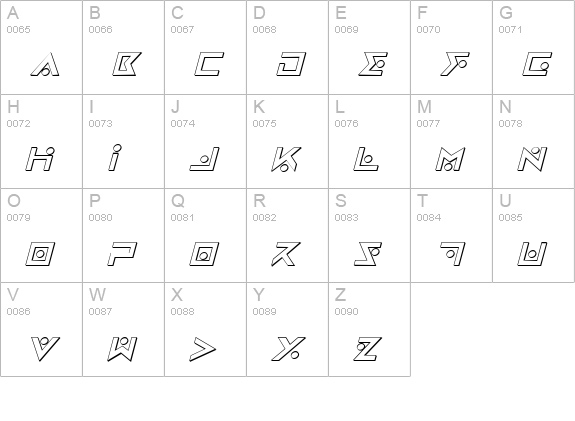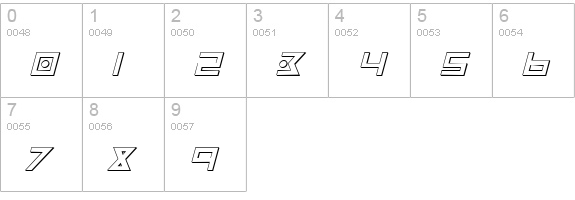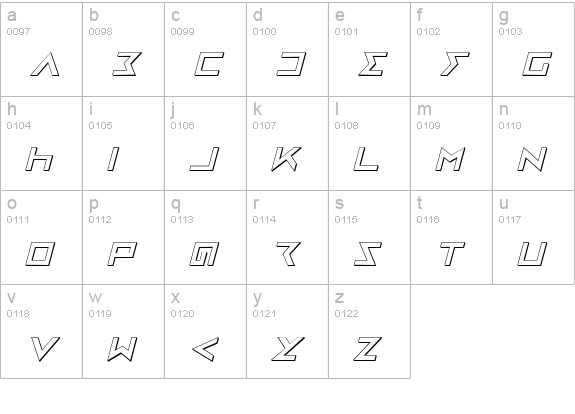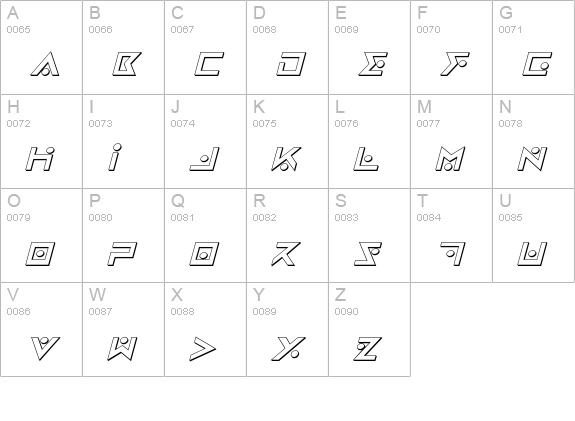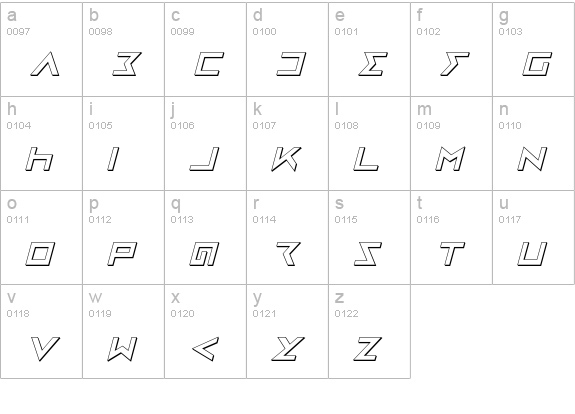
Iron Cobra 3D Italic is a distinctive, italic variant in the Iron typeface family \xE2\x80\x94 well suited to design and typography projects.
Iron Cobra 3D Italic is a striking and bold typeface that exudes power and confidence. Its three-dimensional effect adds depth and dimension to any text, making it perfect for eye-catching headers, titles, and logos. The sleek and modern design of Iron Cobra 3D Italic commands attention and leaves a lasting impression on any viewer. What sets Iron Cobra 3D Italic apart is not just its bold aesthetics, but also the fact that it is available for free download at FontsMarket.com. This means that you can easily access and use this impressive font in your projects without any cost. Whether you are working on a branding project, designing a poster, or creating digital artwork, Iron Cobra 3D Italic is a versatile and impactful font that will elevate your designs to the next level. Download it now and unleash the power of Iron Cobra 3D Italic in your creative endeavors.